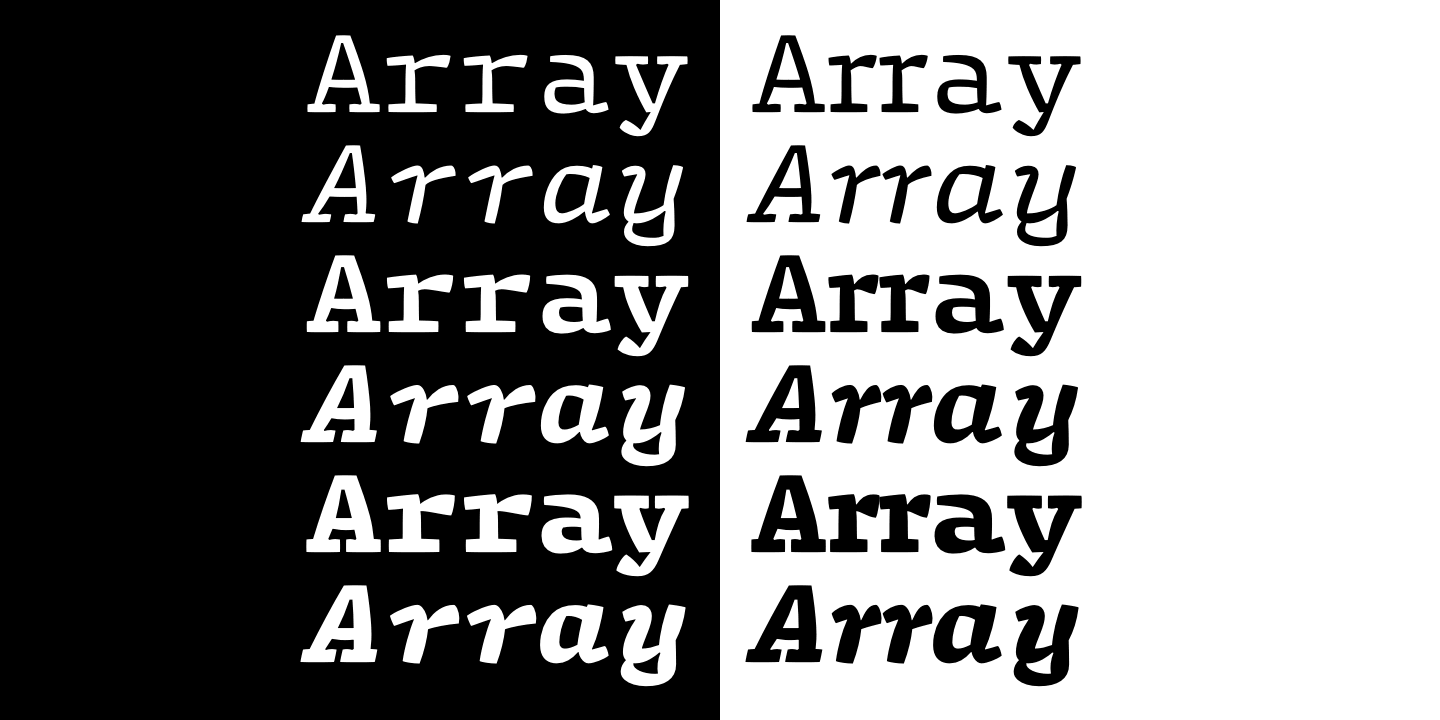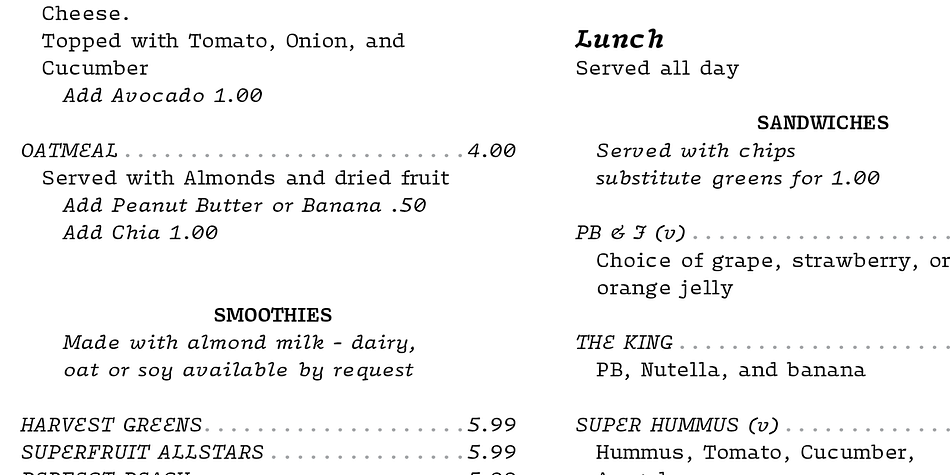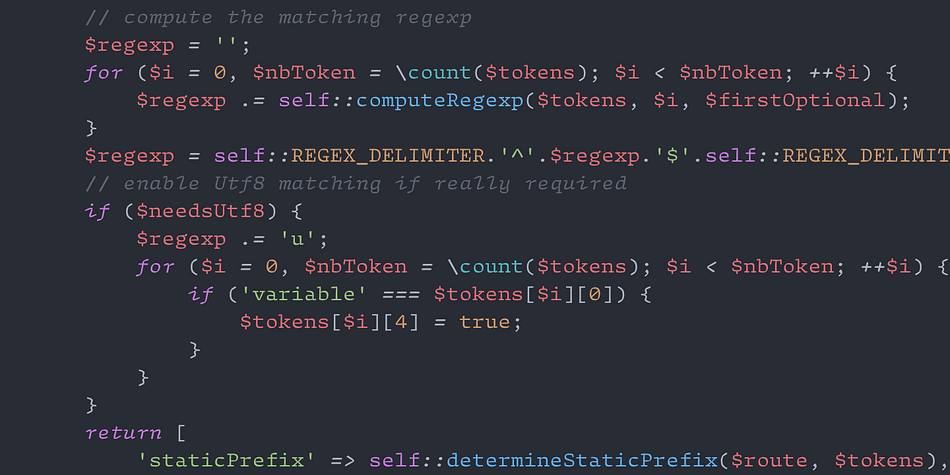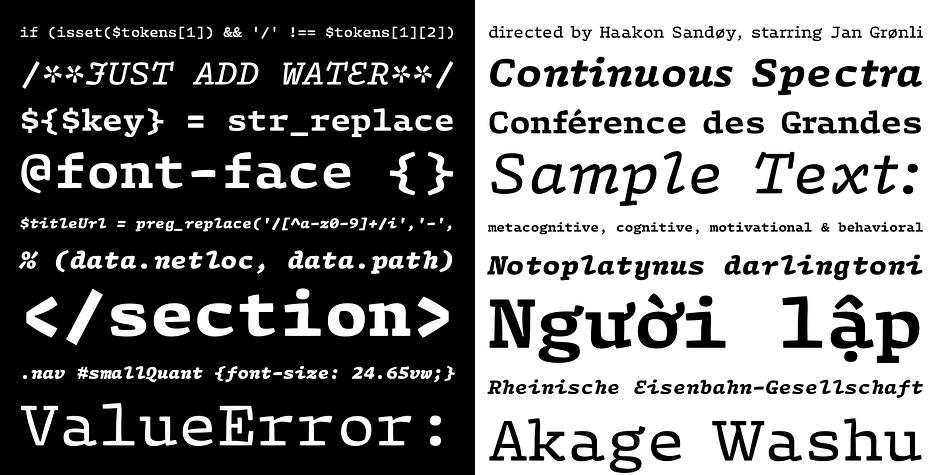
Designed by James Todd, Array is a slab serif and typewriter font family. This typeface has twelve styles and was published by JTD.
Array was designed specifically to bring several disparate ideas together. Can a typeface work for coding and regular text? Can Renaissance ideas be combined with the normally austere styles of monospace type? Array is two typefaces in one: a monospaced family designed to take the necessities of coding into account, and a text typeface which carries a bit of that typewriter manuscript charm with it.